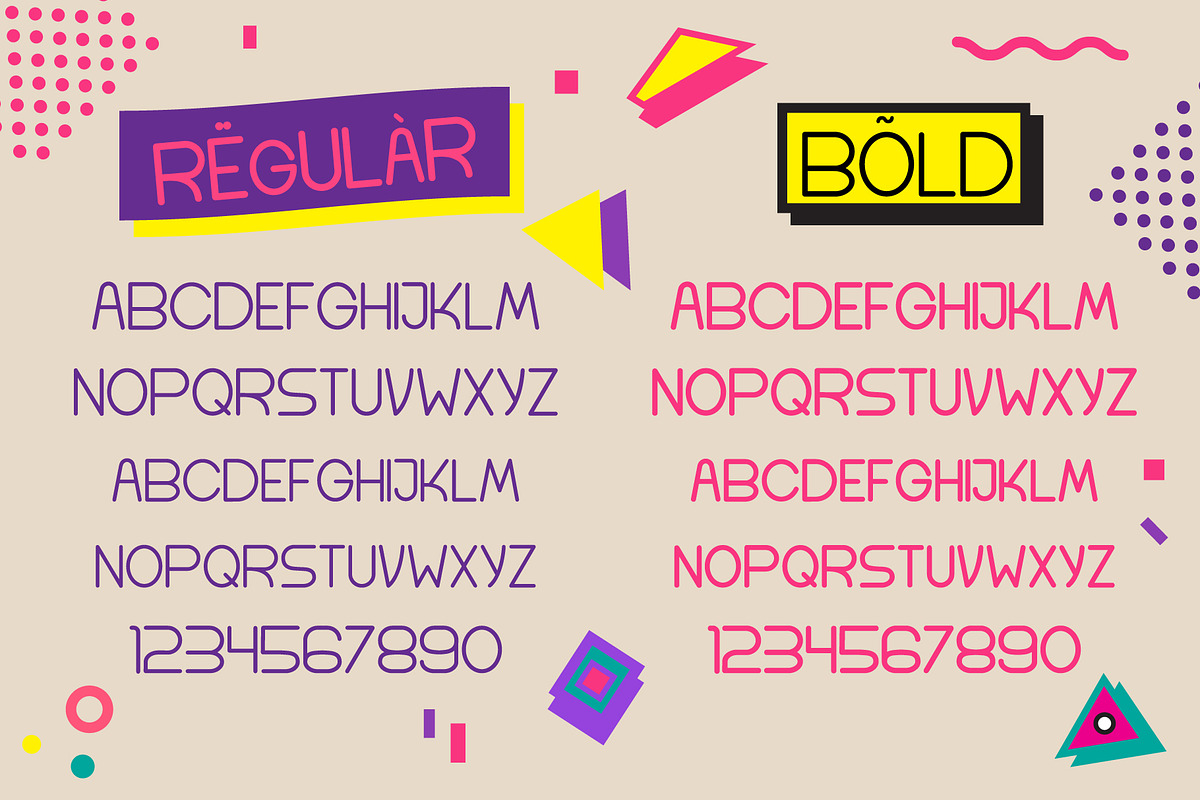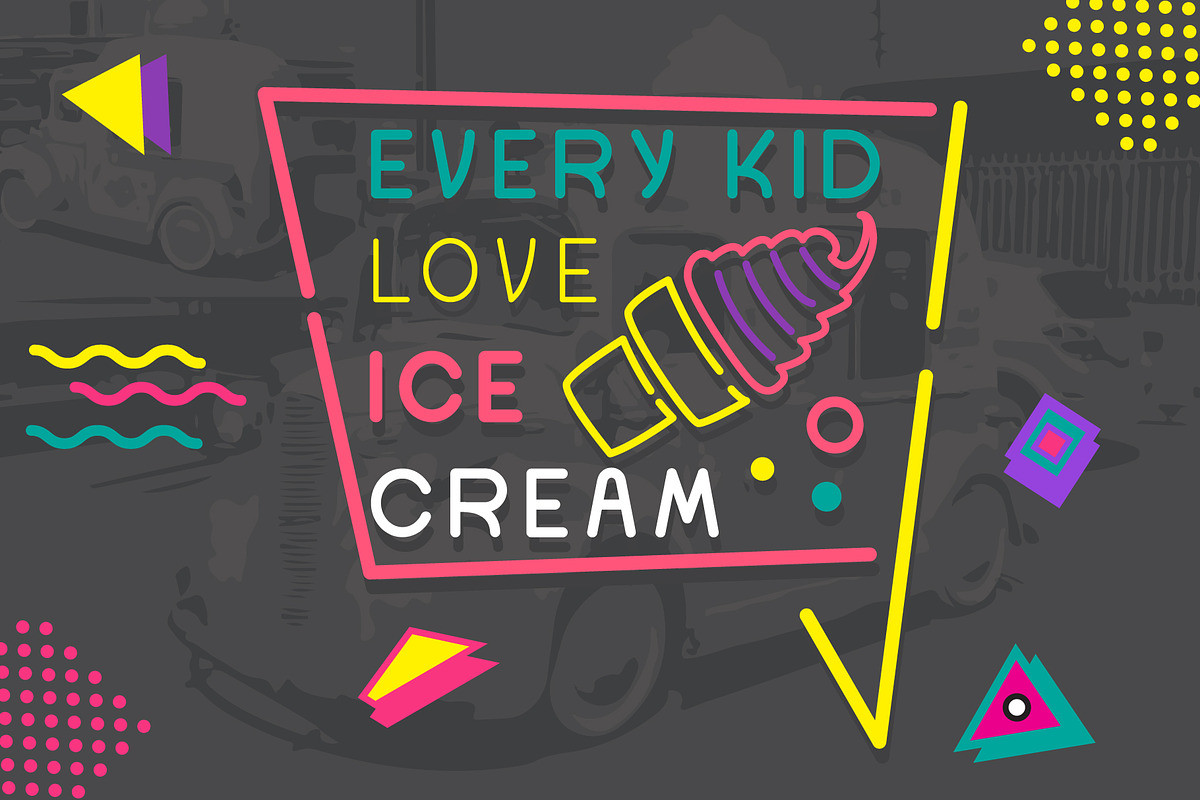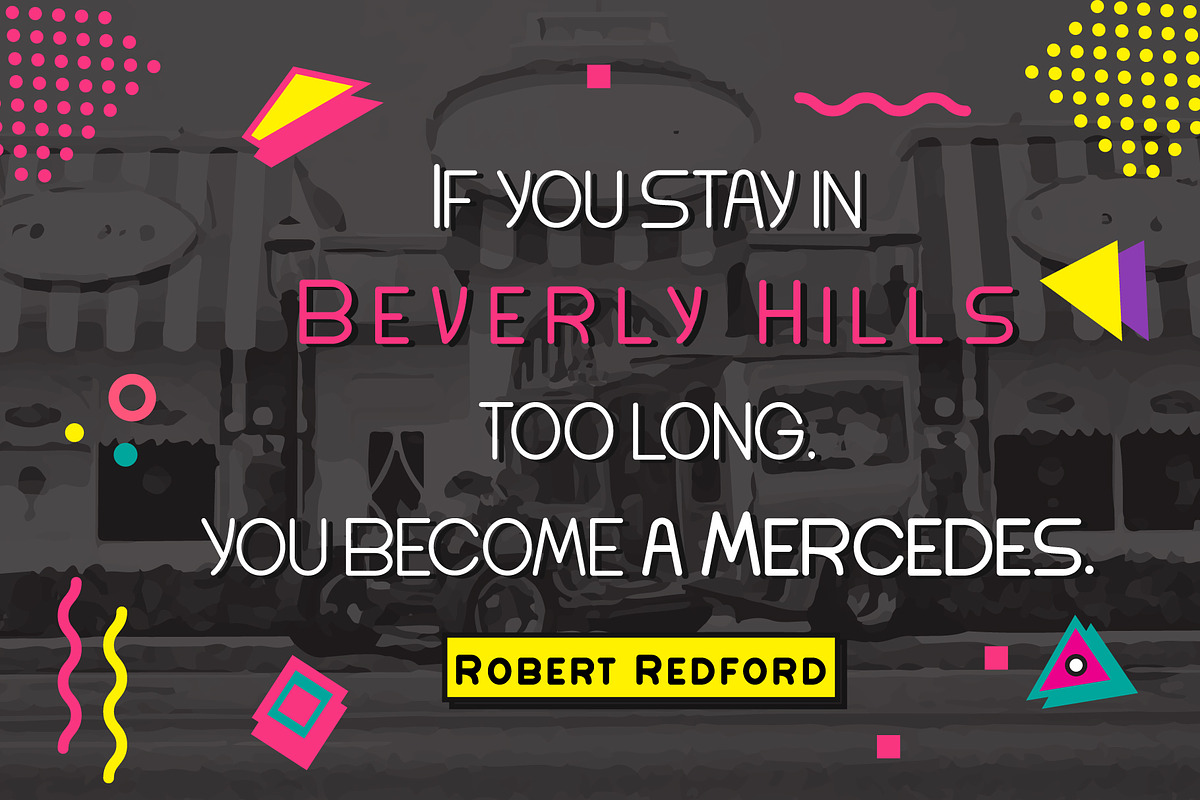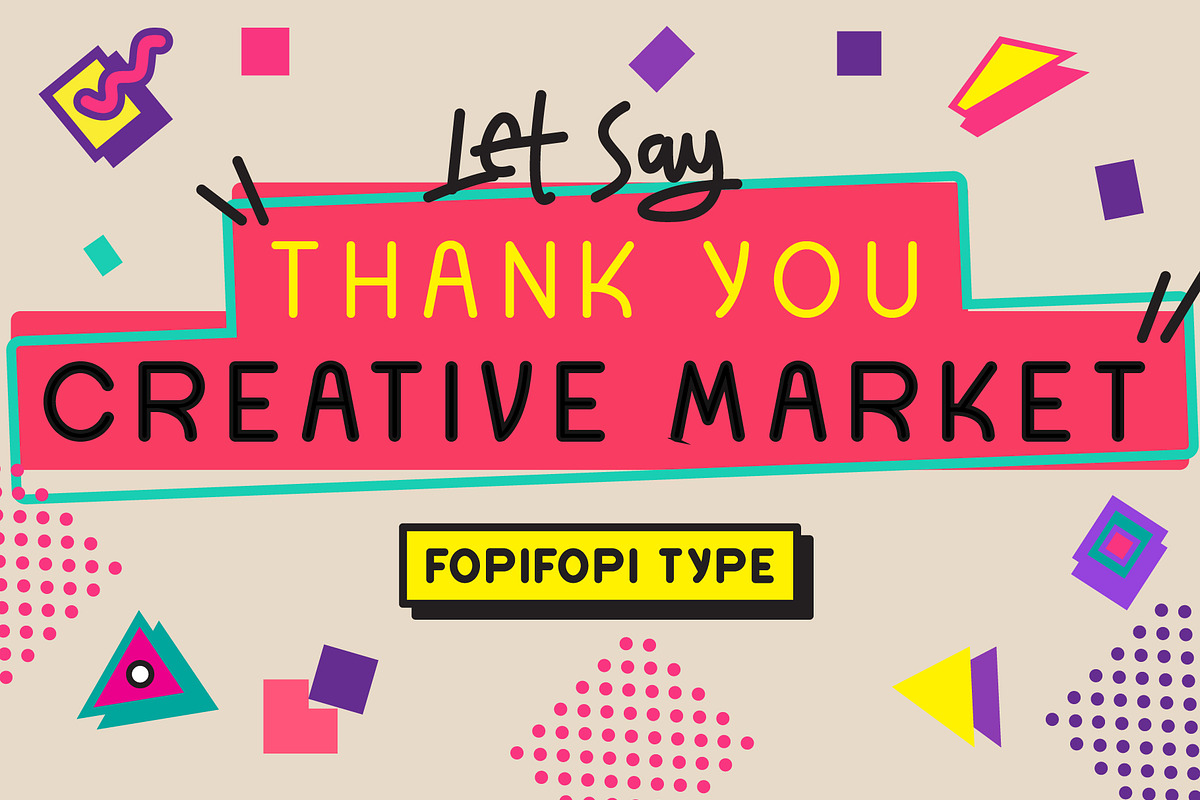
Sale ! 50% Lucinta Fancy Typeface
Sale ! 50% Lucinta Fancy Typeface by fopifopi is a font selected for branding, posters, packaging, typography.
- It comes with 240++ characters included Uppercase, Lowercase, Numbers, Punctuations, Currency, and Accents.
Sale ! 50% Lucinta Fancy Typeface by fopifopi fits naturally into Branding, posters, packaging, typography.